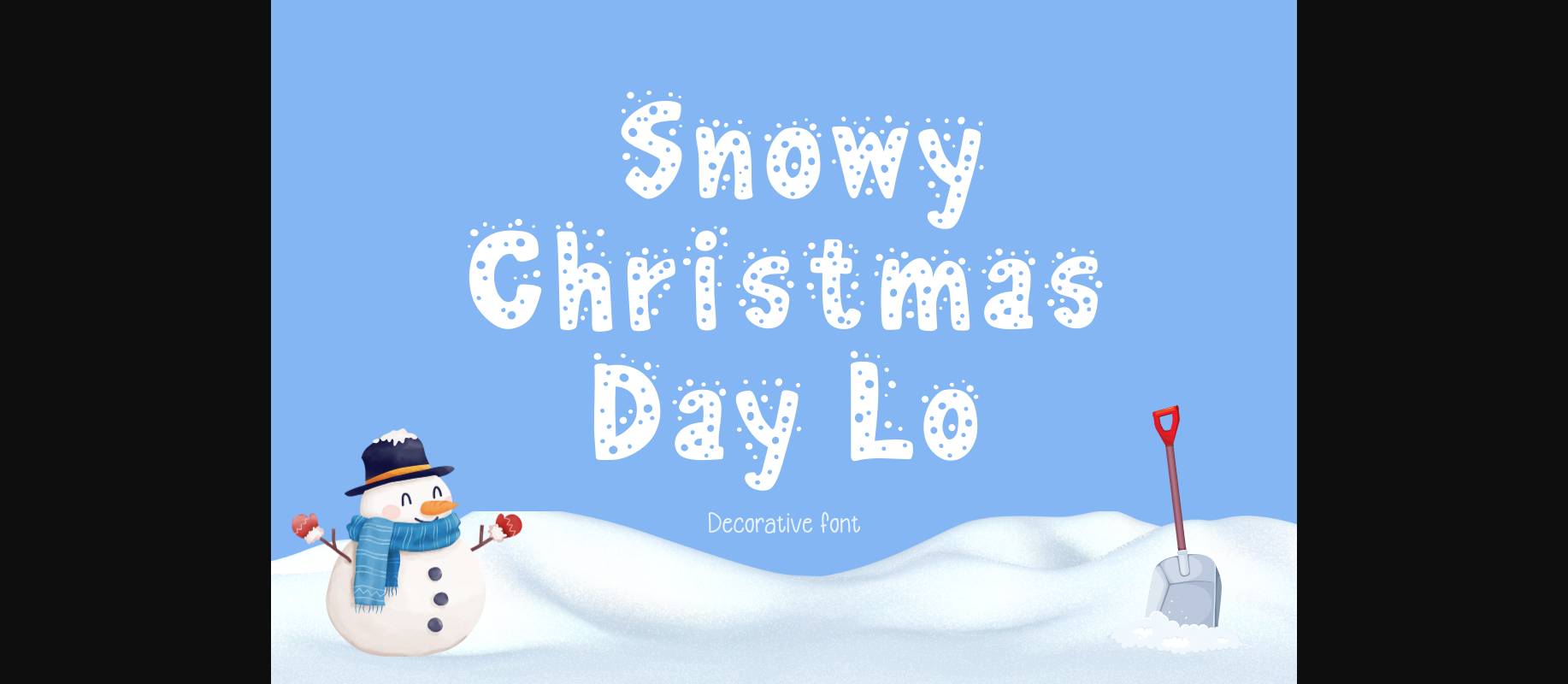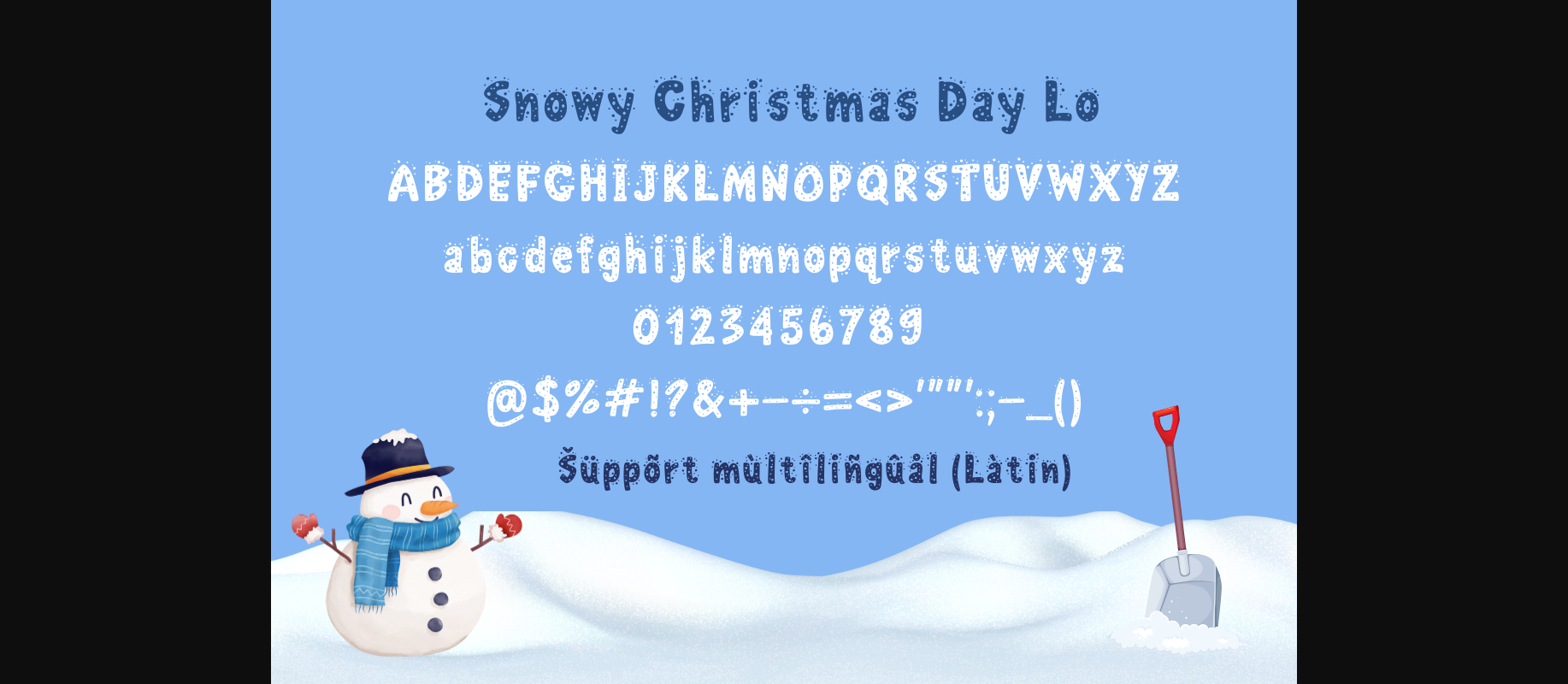
About Snowy Christmas Day Lo Font
Snow is a cute thick lettered decorative font. This font has a design with snow on top of the letters making it look more unusual and interesting. Fall for its ravishing style and use it to create gorgeous create Christmas cards, decorate bags, drinking glasses, beautiful stationery, eye-catching social media posts, and much more!